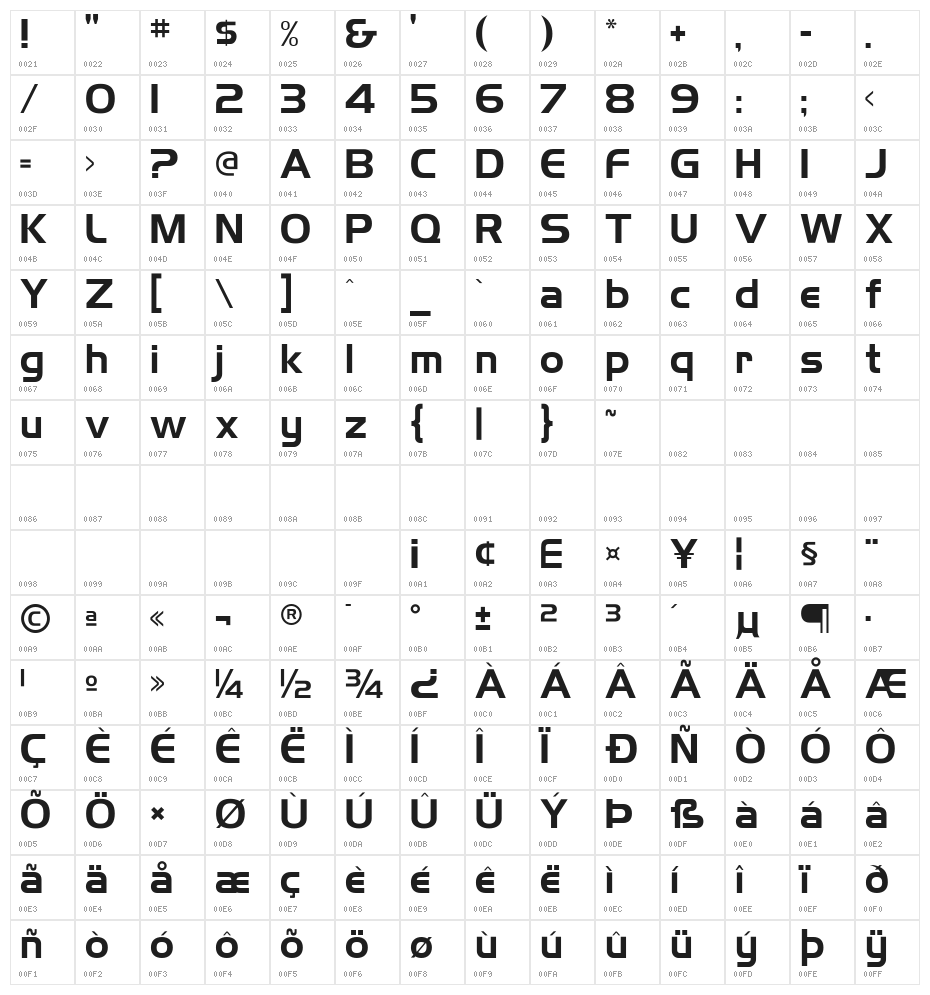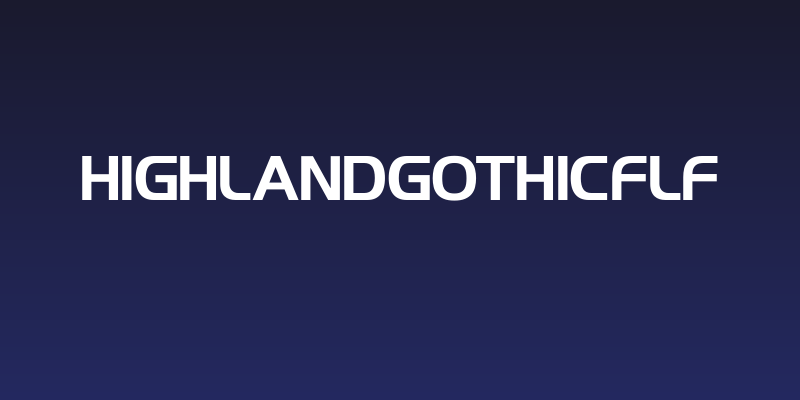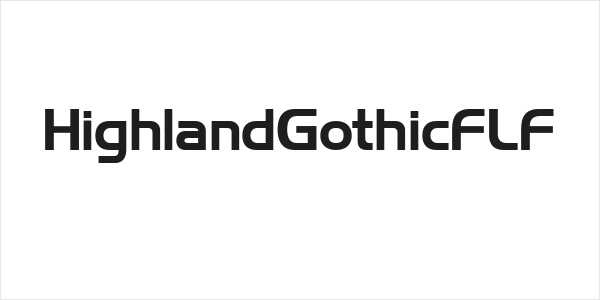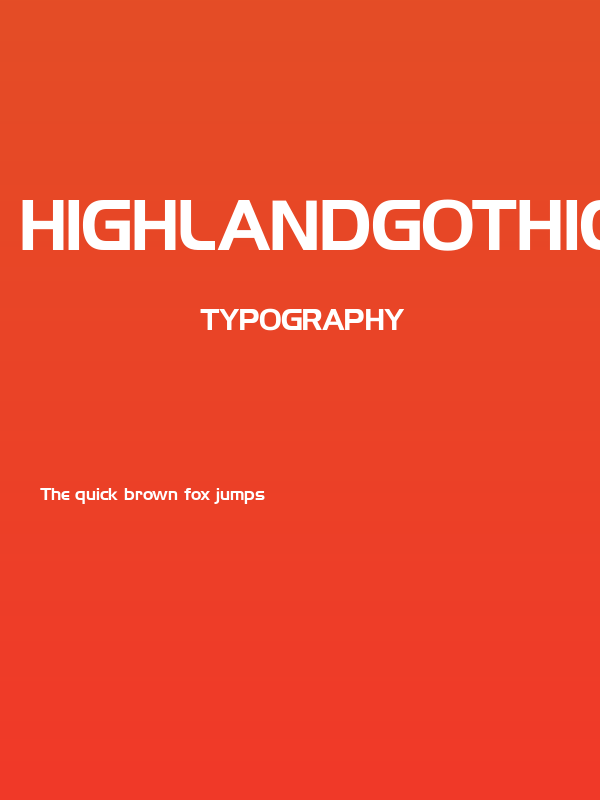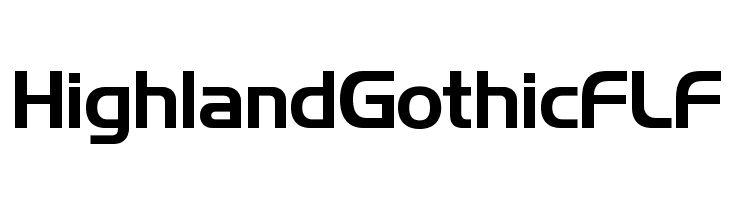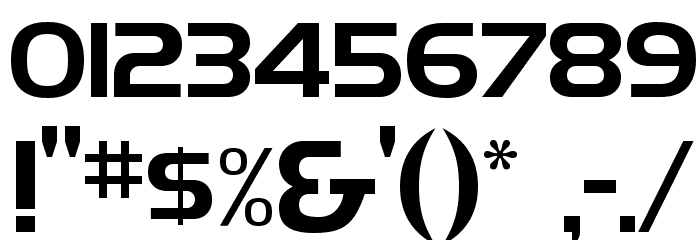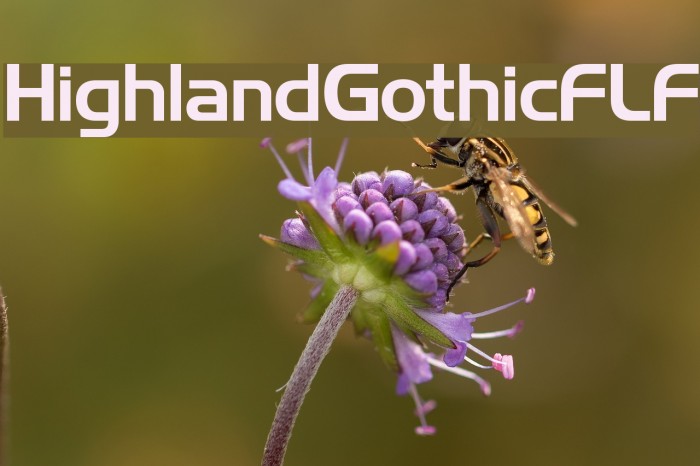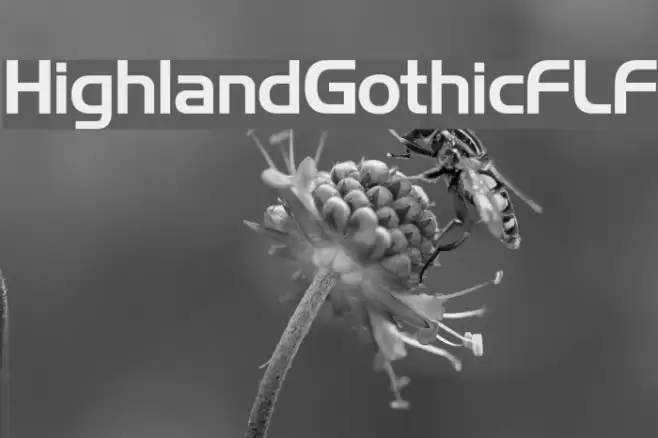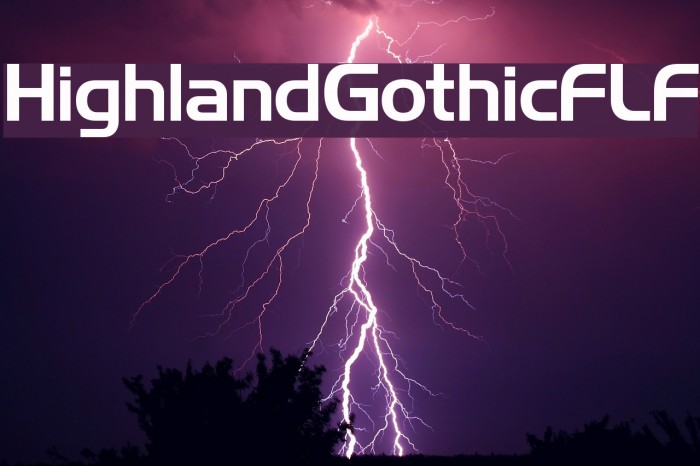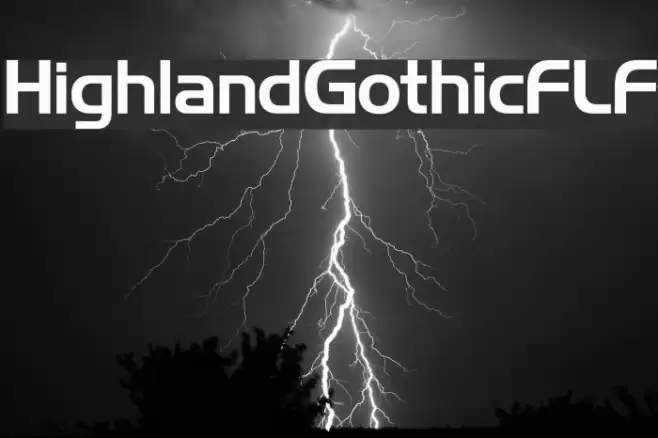
HighlandGothicFLF Font
HighlandGothicFLF Description
This font features a bold and modern sans-serif style with clean, geometric lines and a strong presence. The uppercase letters are uniform in height and width, creating a balanced and cohesive look. The lowercase letters maintain a similar geometric structure, offering a consistent visual flow. Numbers are bold and clear, making them easily readable. Special characters are designed to match the overall aesthetic, ensuring a harmonious appearance across all text elements. The font's design is versatile, suitable for a variety of applications where a contemporary and impactful look is desired.
| Use Case | Headlines, Logos, Branding |
| Proposed Projects | Ideal for branding, advertising, headlines, and digital media projects. |